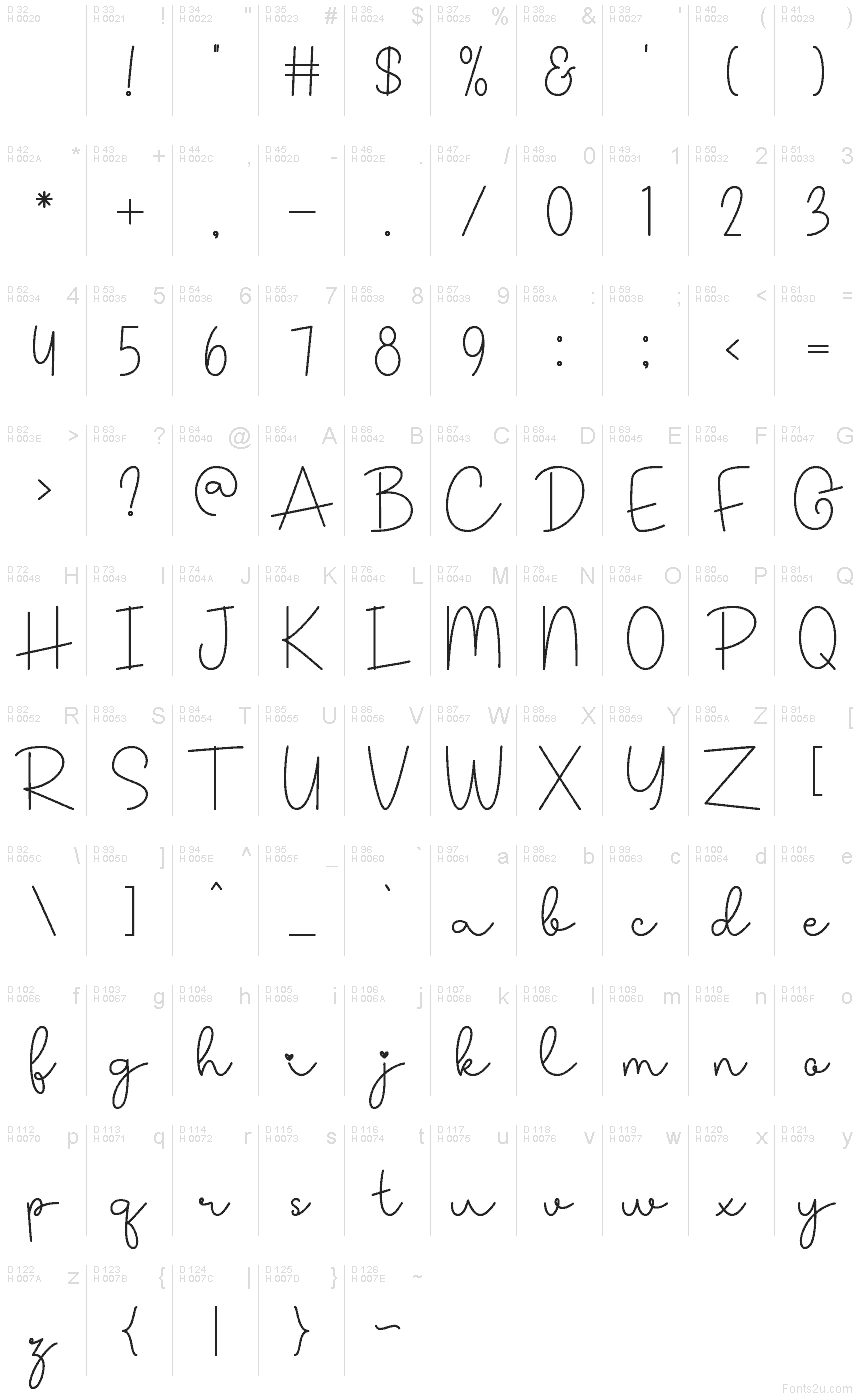
Butter
Butter font designed by Fillo Graphic is a free handwritten font with casual elegance and minimalistic design. Its light weight combines with smooth flow, curved details, and an approachable tone to create a unique stylish appearance and feel. Easily readable and having friendly aesthetics, the typeface is pleasant to read in short or long texts.